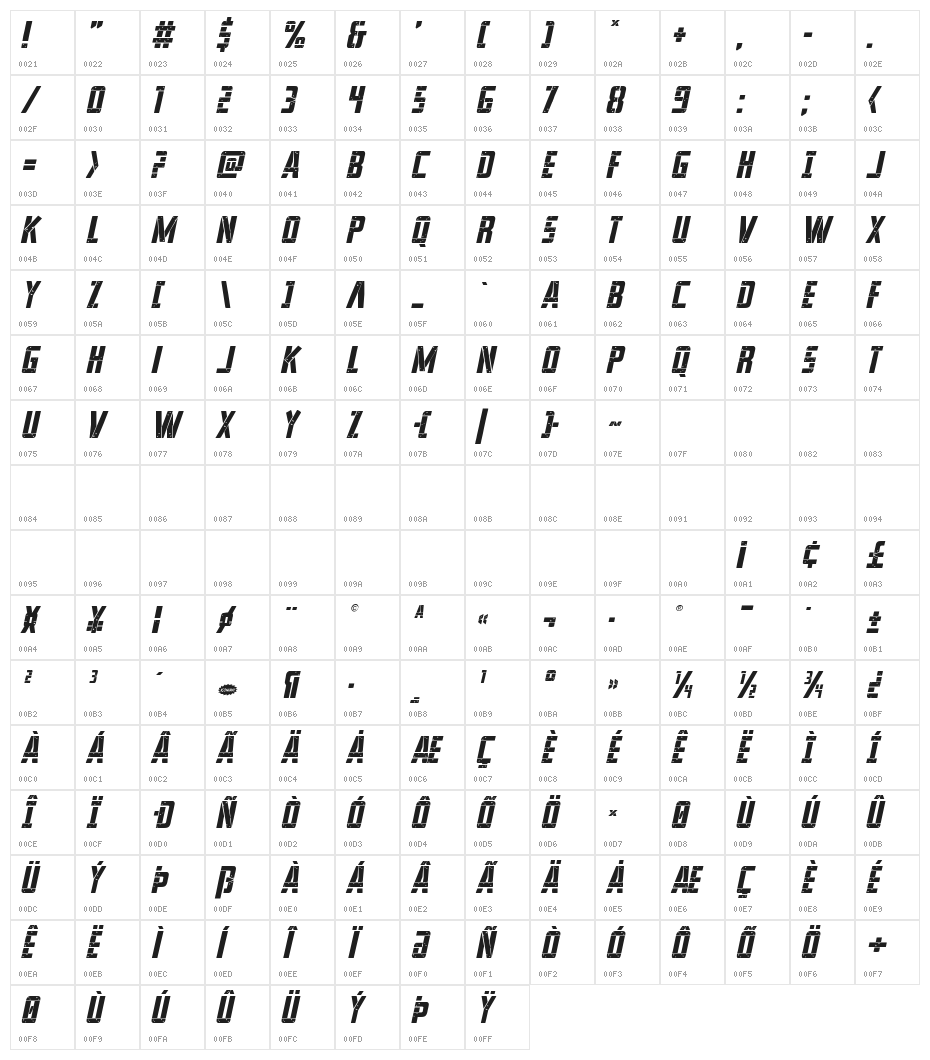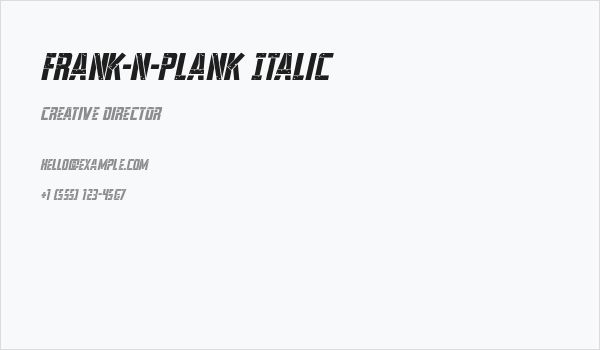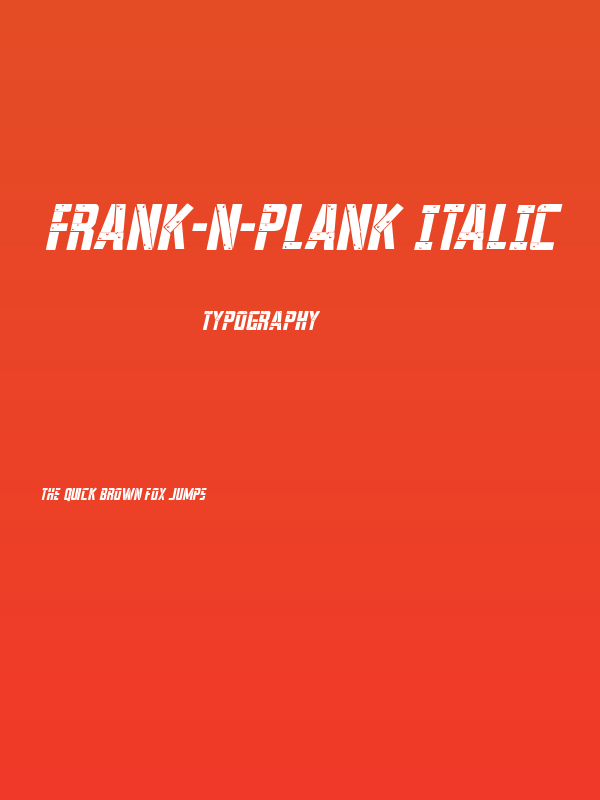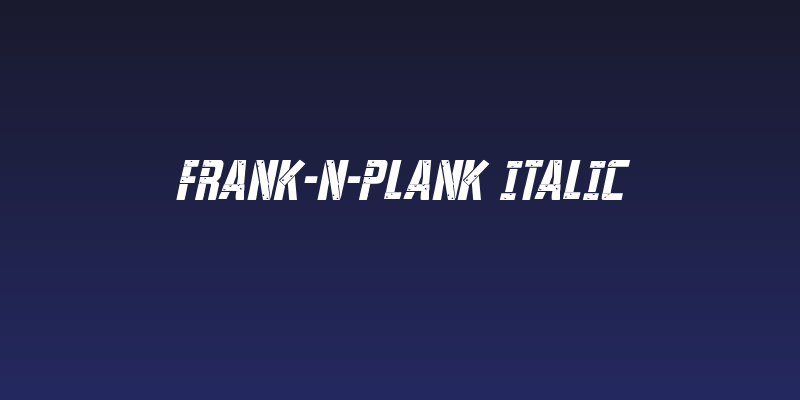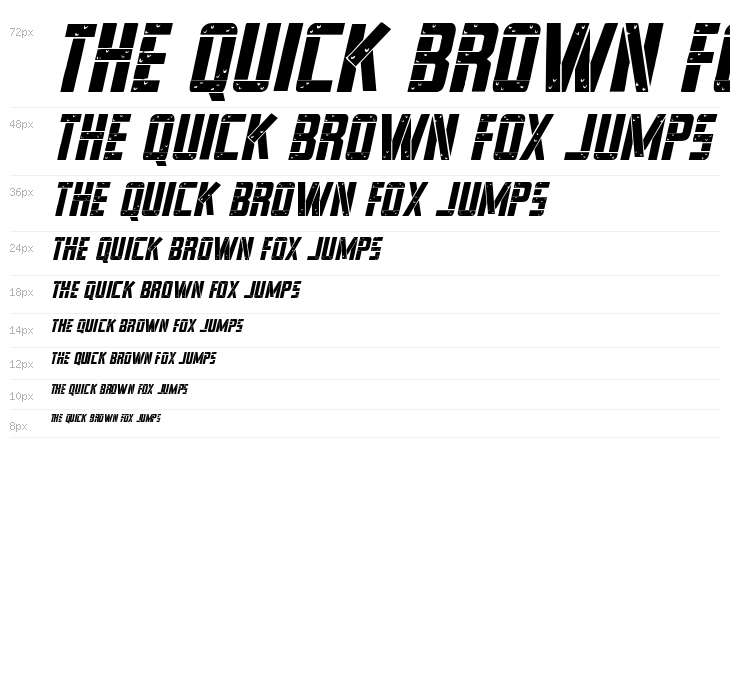
Frank-n-Plank Italic Font
Frank-n-Plank Italic Description
This font features a bold, industrial design with a distinct italic slant. Each character is constructed with a plank-like appearance, incorporating rivet details that give it a mechanical and rugged feel. The uppercase and lowercase letters maintain a consistent style, emphasizing a strong, cohesive look. The numbers and special characters follow the same design principles, ensuring uniformity across all glyphs. Its unique style is both eye-catching and functional, making it suitable for projects that require a bold statement.
| Overall Style | Industrial, Modern |
| Proposed Projects | Ideal for branding, posters, signage, and any project needing a strong industrial aesthetic. |